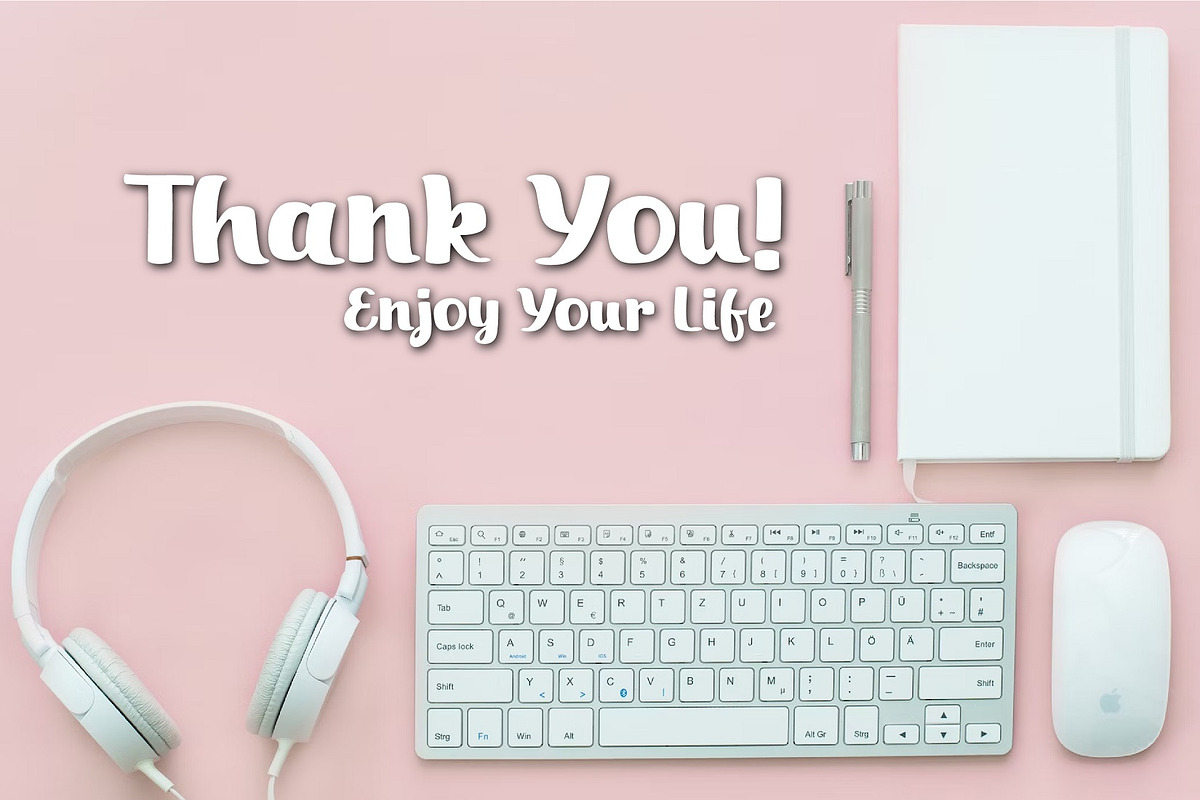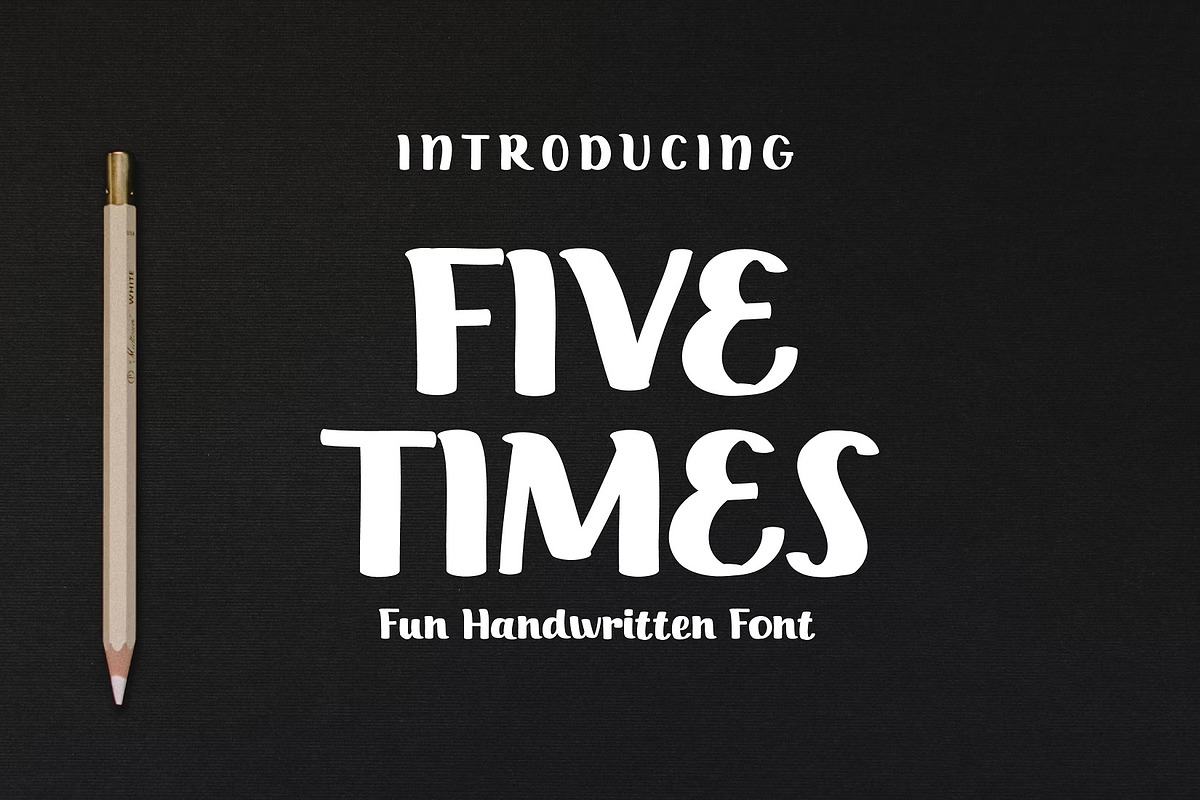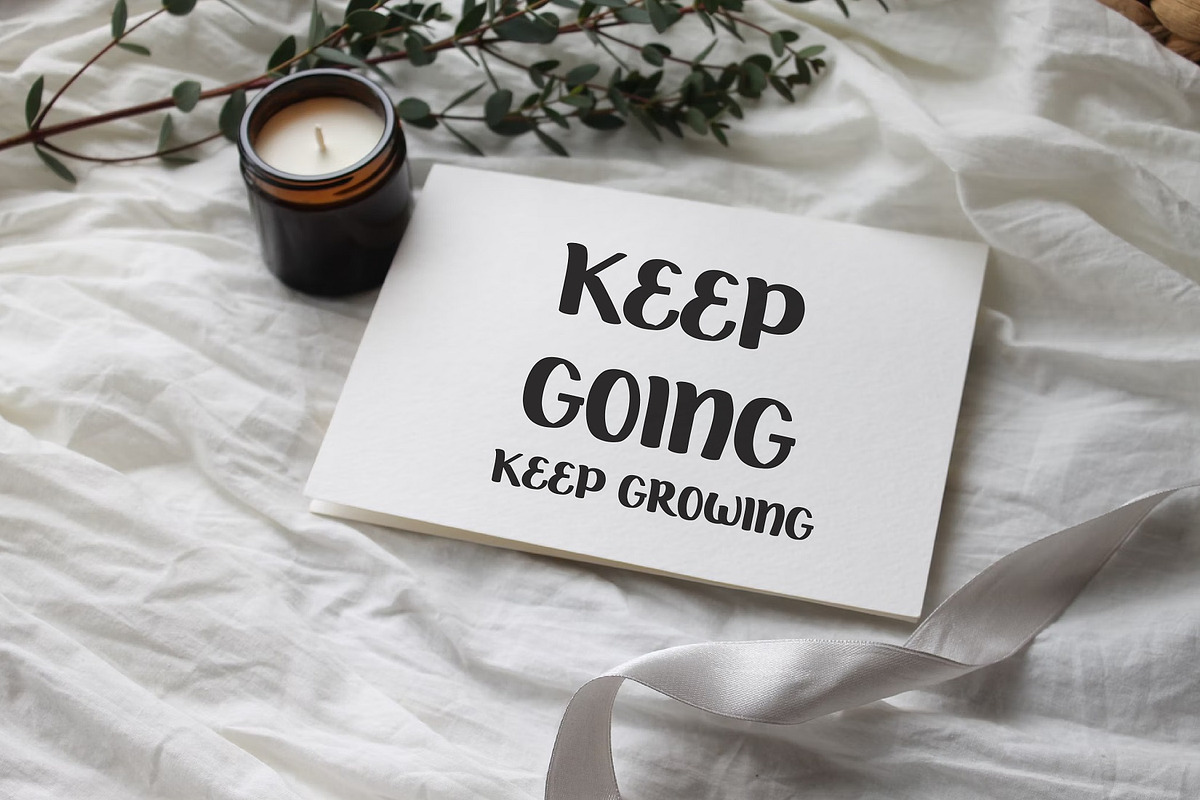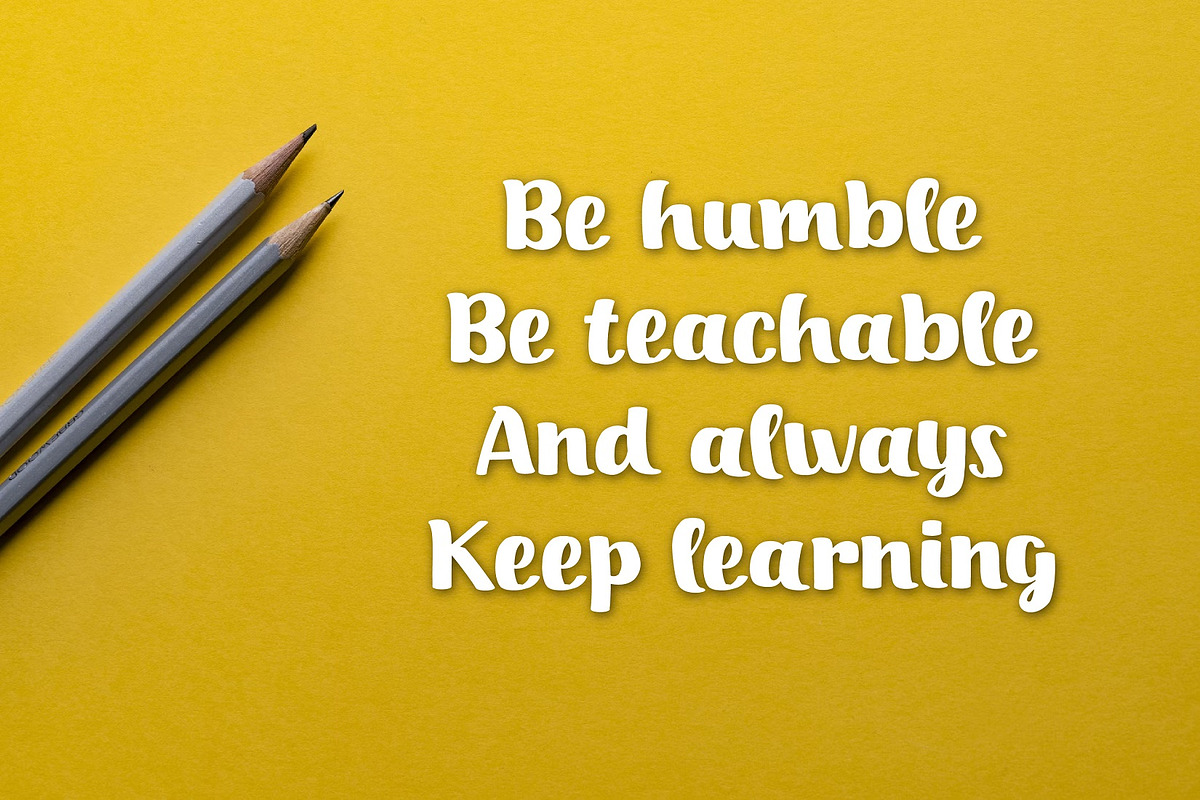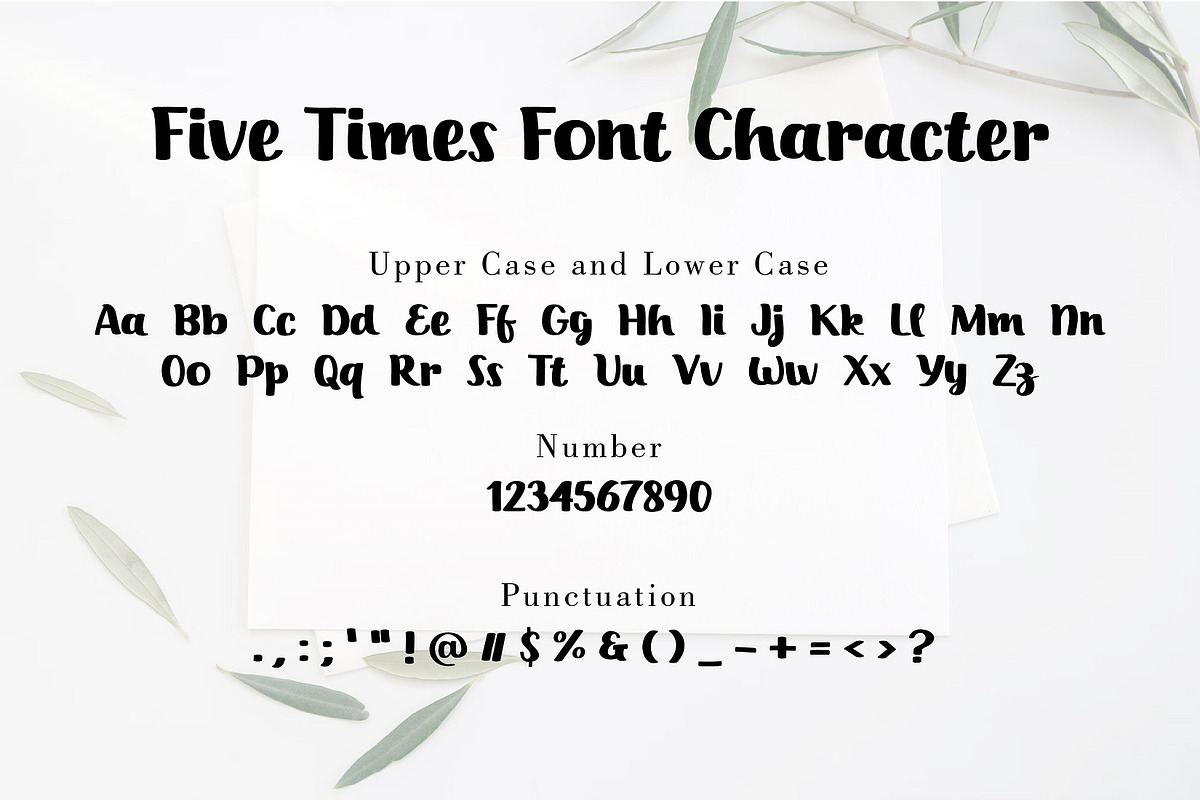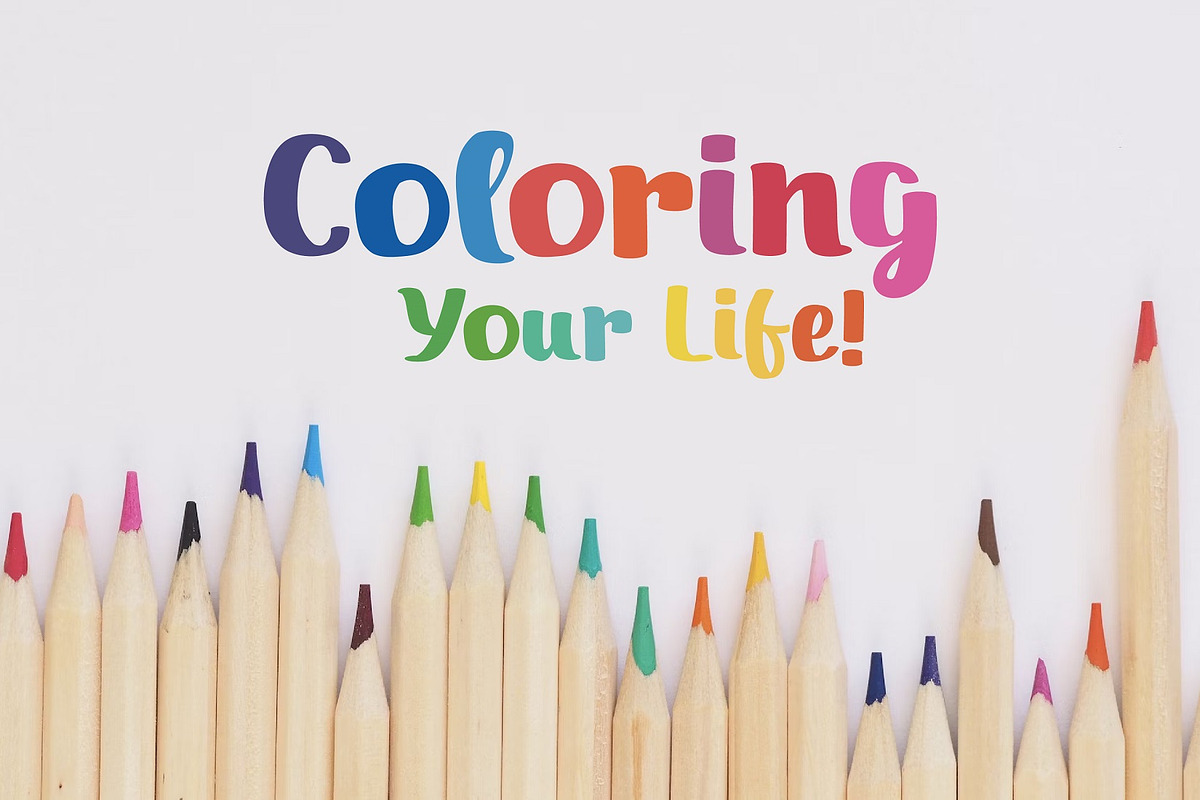
Five Times Fun Handwritten Font
Introducing Five Times - Fun Handwritten Font
Five Times is a Fun Handwritten font. Perfect for branding projects, logo, wedding designs, social media posts, advertisements, product packaging, product designs, label, photography, watermark, invitation, stationery and any projects that need handwriting taste.